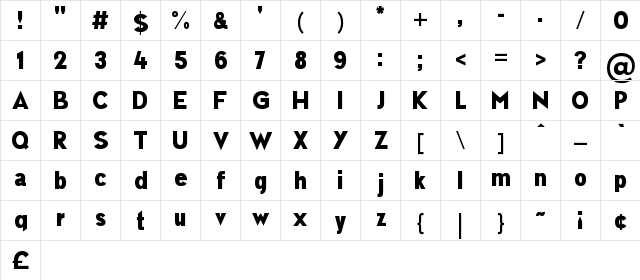
NEWSFLASH Regular
Design Context for NEWSFLASH Typeface
NEWSFLASH takes a measured approach to typography — its balanced proportions and neutral character make it a reliable workhorse for both digital and print work.
Pro Tip: Use NEWSFLASH in both headline and body roles to test its range before committing to a single application.